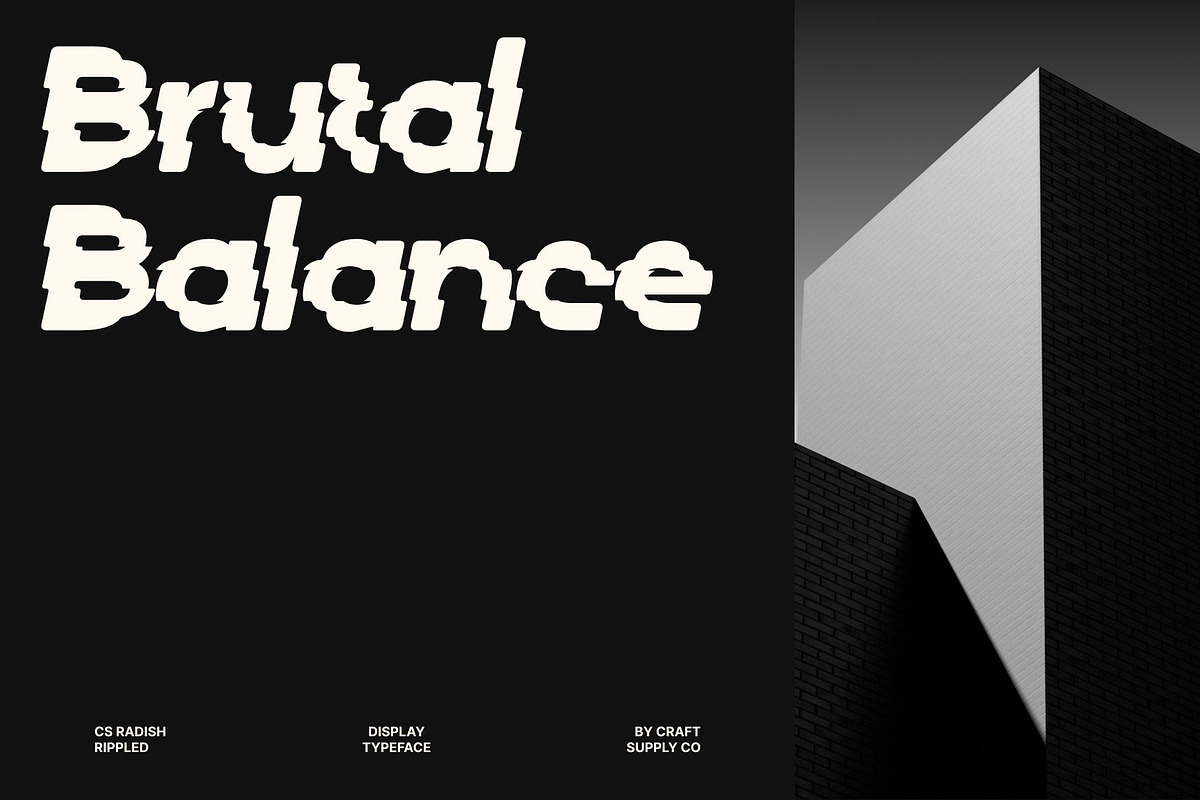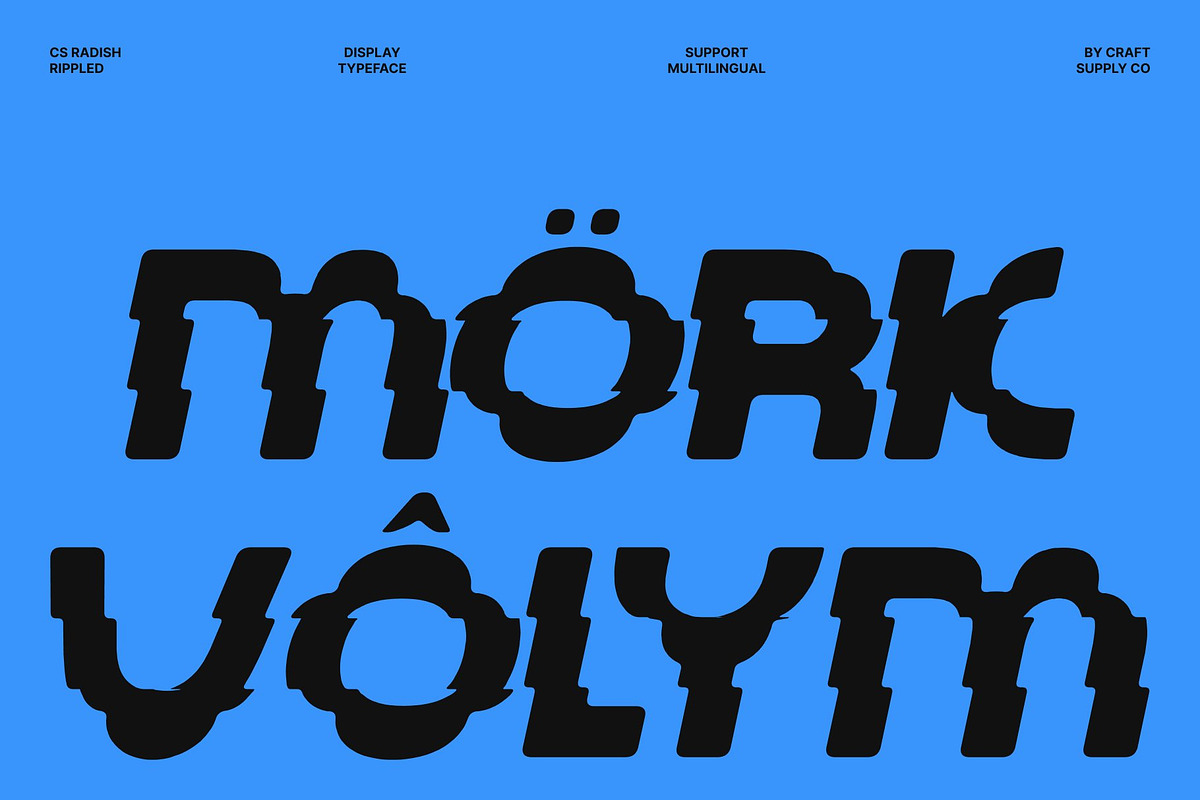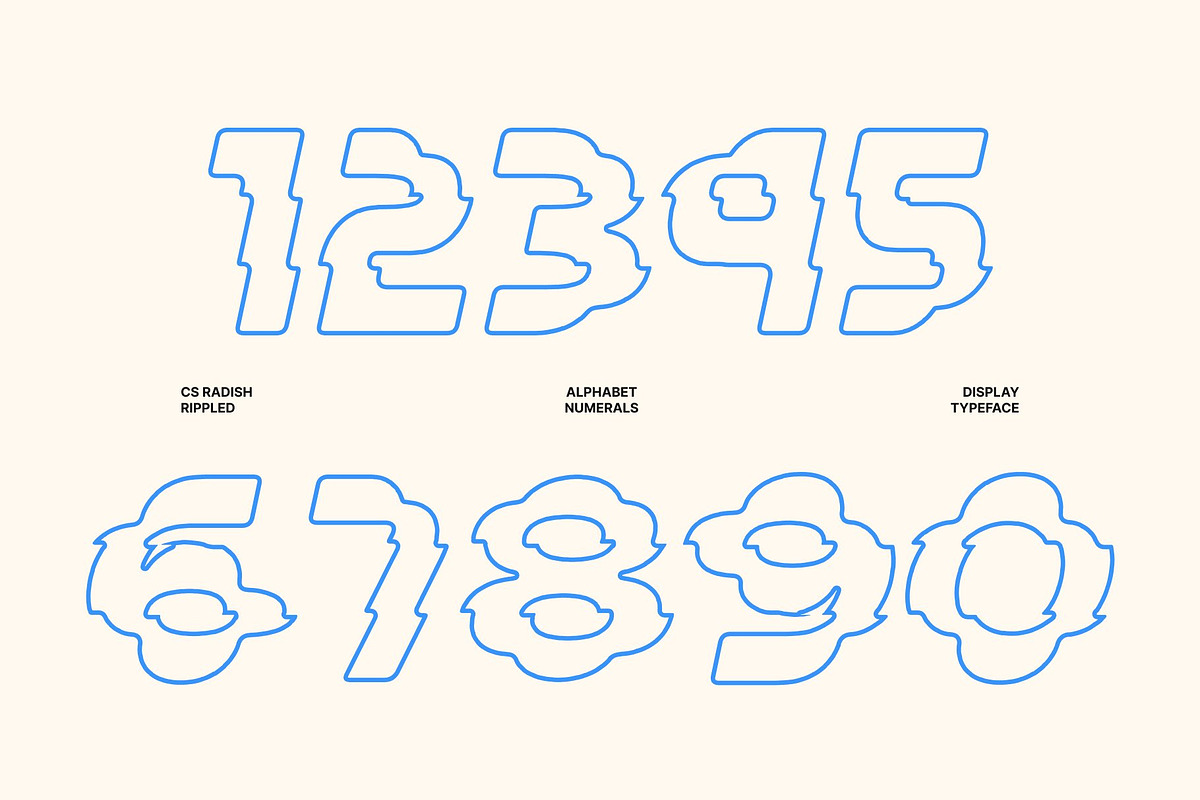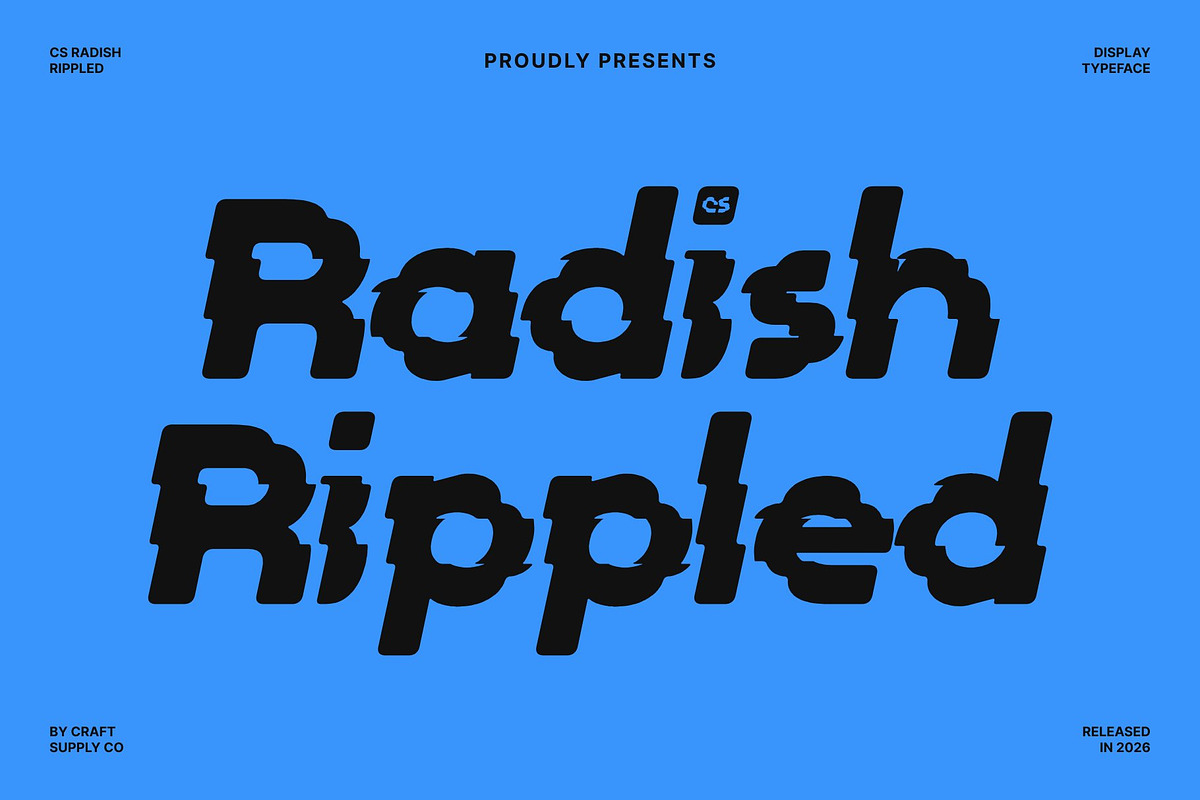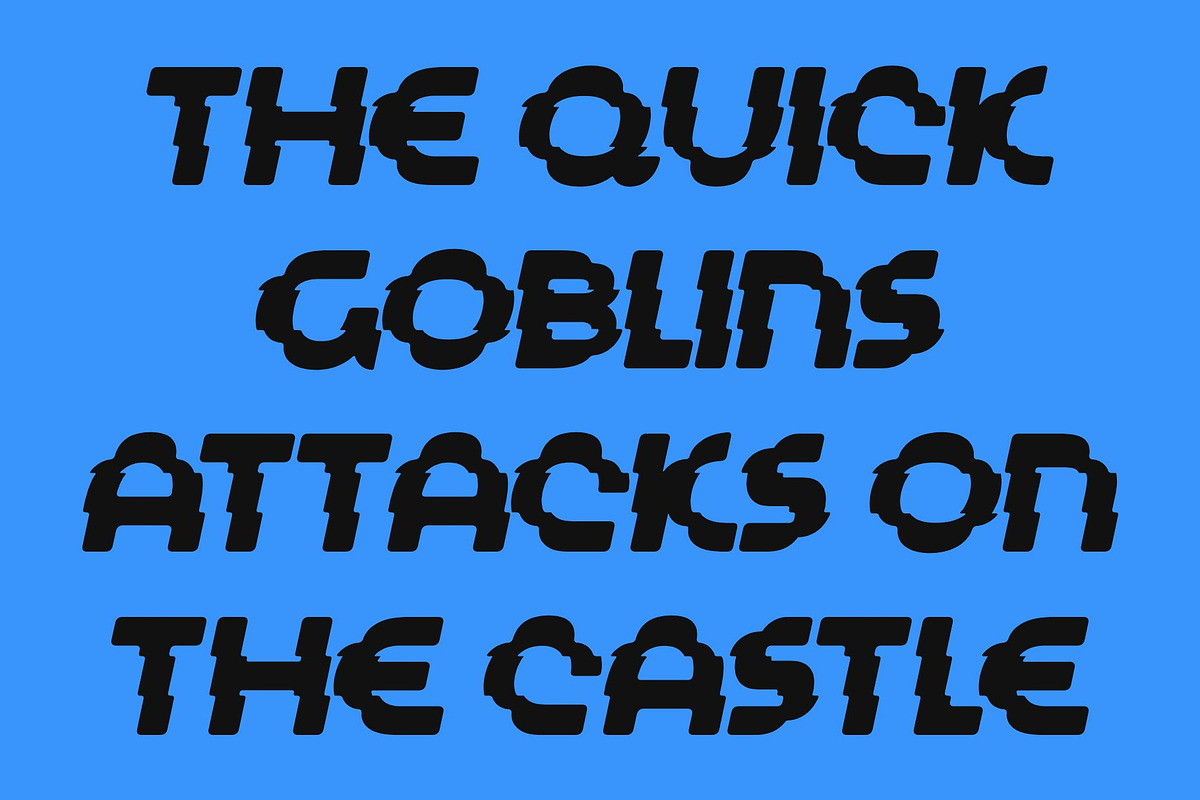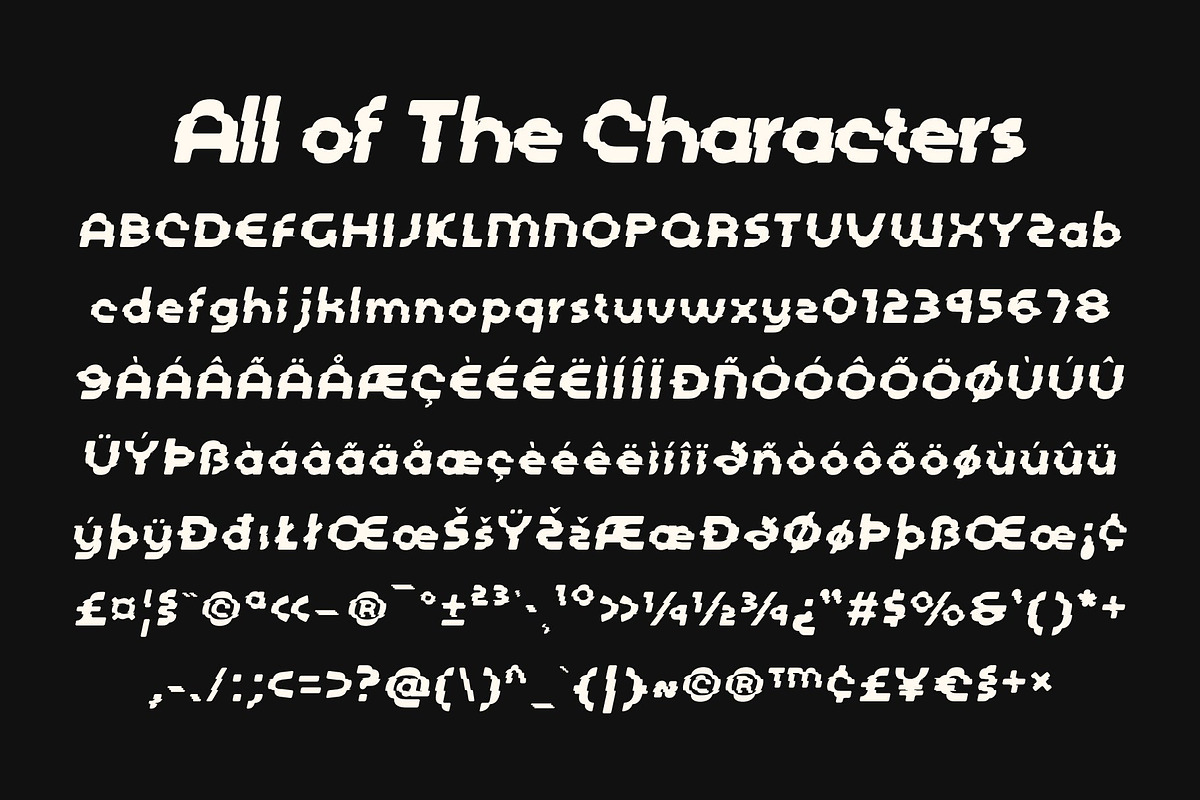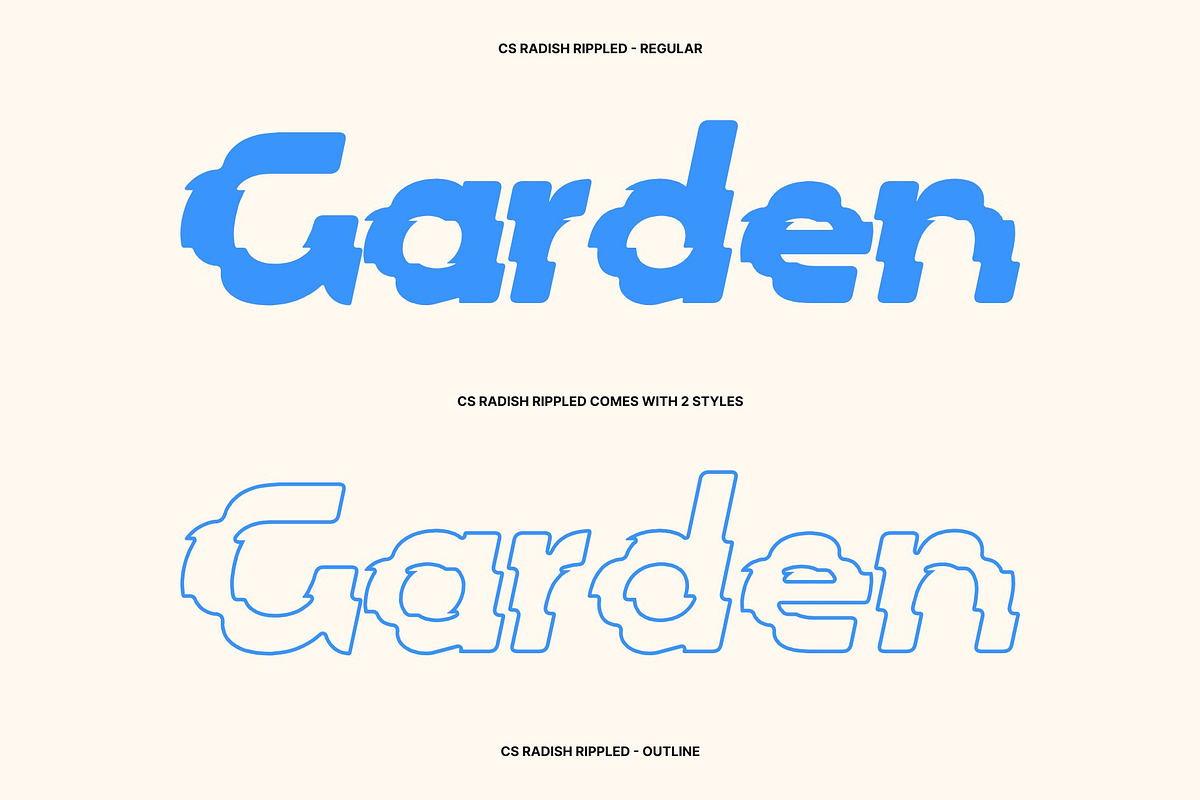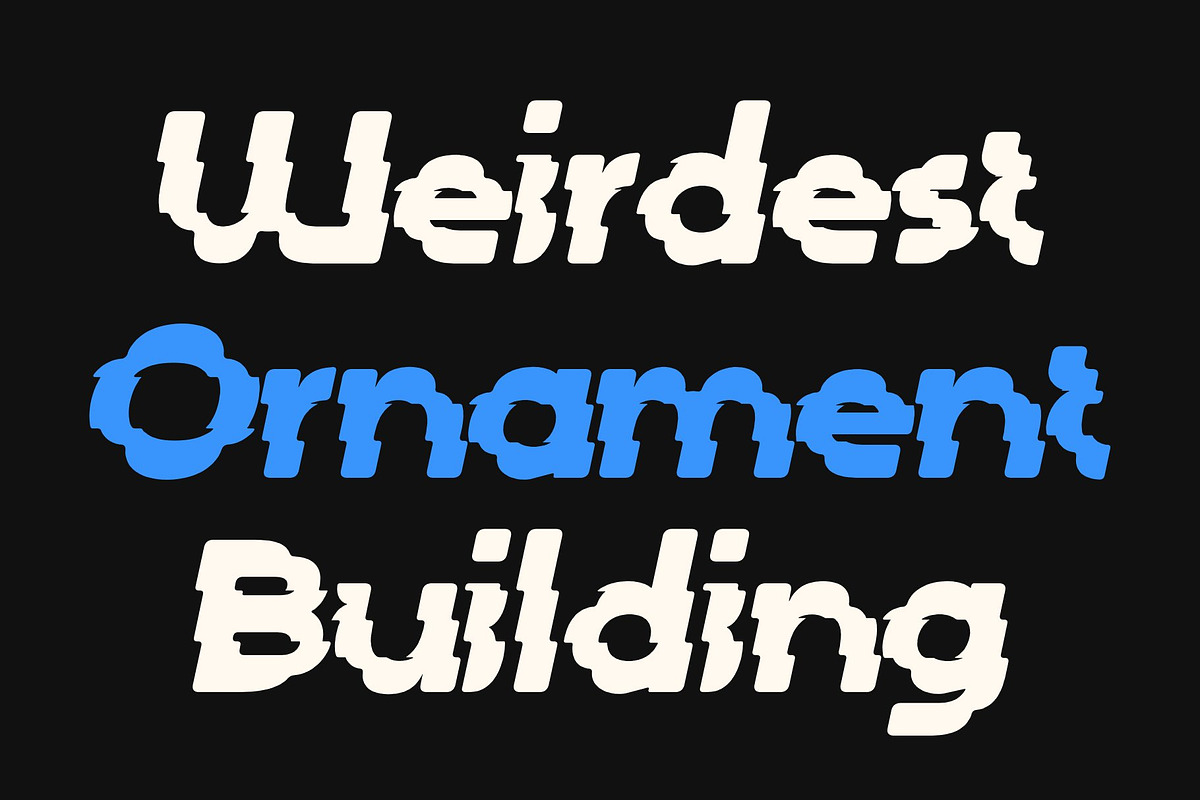
CS Radish Rippled
Bring a wave of joyful energy to your next creative project with CS Radish Rippled, a bold decorative display sans serif font designed to capture the imagination. Taking its primary inspiration from the soft, flowing shapes of clouds, this unique typeface features rounded, curving lines that look as though they are gently reflected in water or shifted by passing ripples. The resulting aesthetic is both organic and whimsical, delivering a distinctive and endearing quality that instantly draws the eye and uplifts the mood.
Every character in CS Radish Rippled exudes a fun, energetic vibe, offering a wonderful sense of lightness and playfulness for modern visual communication. Its cloud-like characteristics make it exceptionally well-suited for branding, posters, packaging, and social media graphics that aim to evoke pure happiness, creativity, and a carefree spirit. Whether you are crafting cheerful youth-oriented merchandise or vibrant event invitations, this font ensures your headlines stand out with memorable warmth and friendly charm.
Despite its expressive and fluid nature, the heavy presence of CS Radish Rippled anchors your compositions, giving text a solid foundation while maintaining an airy, dreamlike motion. The harmonious balance between bold letterforms and undulating contours creates an engaging visual rhythm that feels lively yet approachable. It is an effortless way to inject personality and movement into static layouts, transforming ordinary words into captivating design statements.
Elevate your design toolkit with a typeface that celebrates imagination and lighthearted design. CS Radish Rippled invites viewers to experience typography in a fresh, dynamic way, proving that professional branding can still be wonderfully imaginative. Embrace the fluid beauty of this cloud-inspired creation and let your most vibrant, cheerful ideas float effortlessly off the page.
CS Radish Rippled Regular
CS Radish Rippled Outline